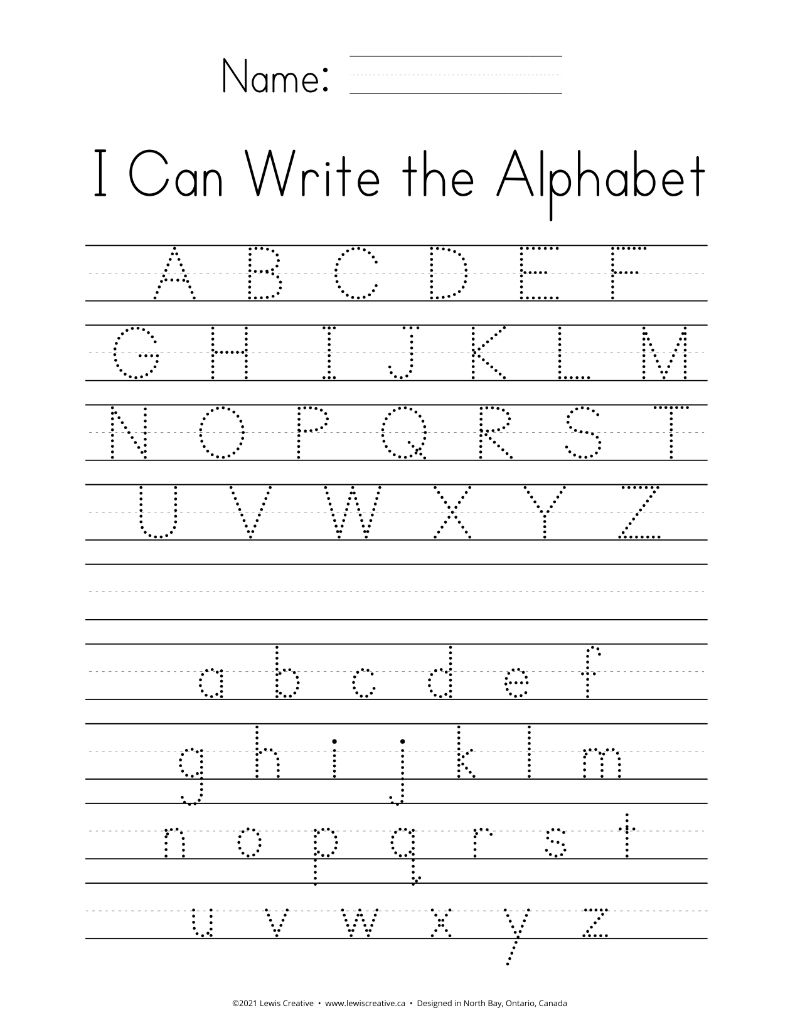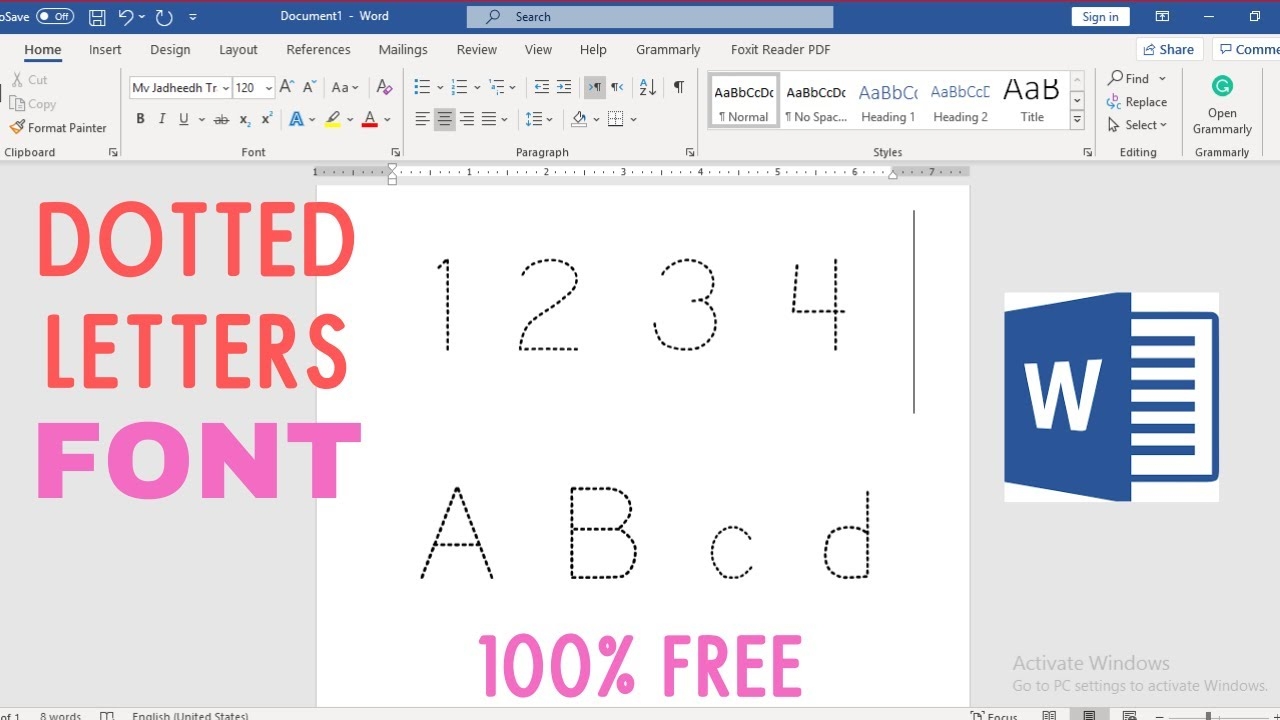
Finding the perfect font for tracing can make learning to write fun and engaging for kids. A free dotted letter font can be a great tool for parents and educators alike. It helps children practice their handwriting skills while enjoying the process.
Many of these fonts come in different styles, allowing you to choose one that suits your child’s preferences. Whether they prefer playful designs or more traditional styles, there’s something for everyone. This variety keeps the learning experience fresh and exciting.
Incorporating these fonts into daily practice can significantly improve your child’s writing skills. You can create custom worksheets or use them in digital formats, making learning accessible and enjoyable at home or in the classroom.
In conclusion, a free dotted letter font for tracing is an excellent resource for enhancing children’s writing abilities. By making learning interactive and fun, you can help foster a love for writing that lasts a lifetime.